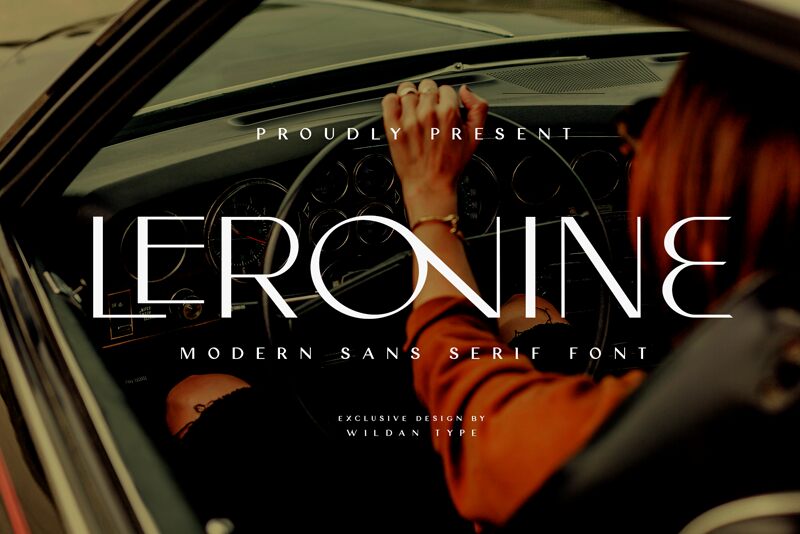
Leronine, a captivating sans-serif font designed by Wildan Type, effortlessly blends clean lines with a touch of elegance. Its striking minimalist aesthetic creates a sense of refined modernity, inviting the viewer to immerse themselves in its understated beauty. The font's balanced letterforms and harmonious proportions exude a timeless allure, lending themselves seamlessly to a wide range of design applications.
Leronine's versatility shines through its adaptability to diverse design contexts. Its refined simplicity makes it an excellent choice for branding, editorial layouts, and digital interfaces, where it can elevate the overall aesthetic with its refined and contemporary appeal. Designers seeking a font that effortlessly balances functionality and visual appeal will find Leronine a compelling addition to their creative toolkit.
Leronine is font by Wildan Suprian Syah